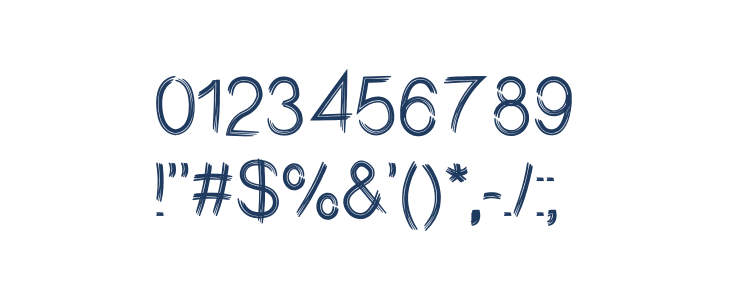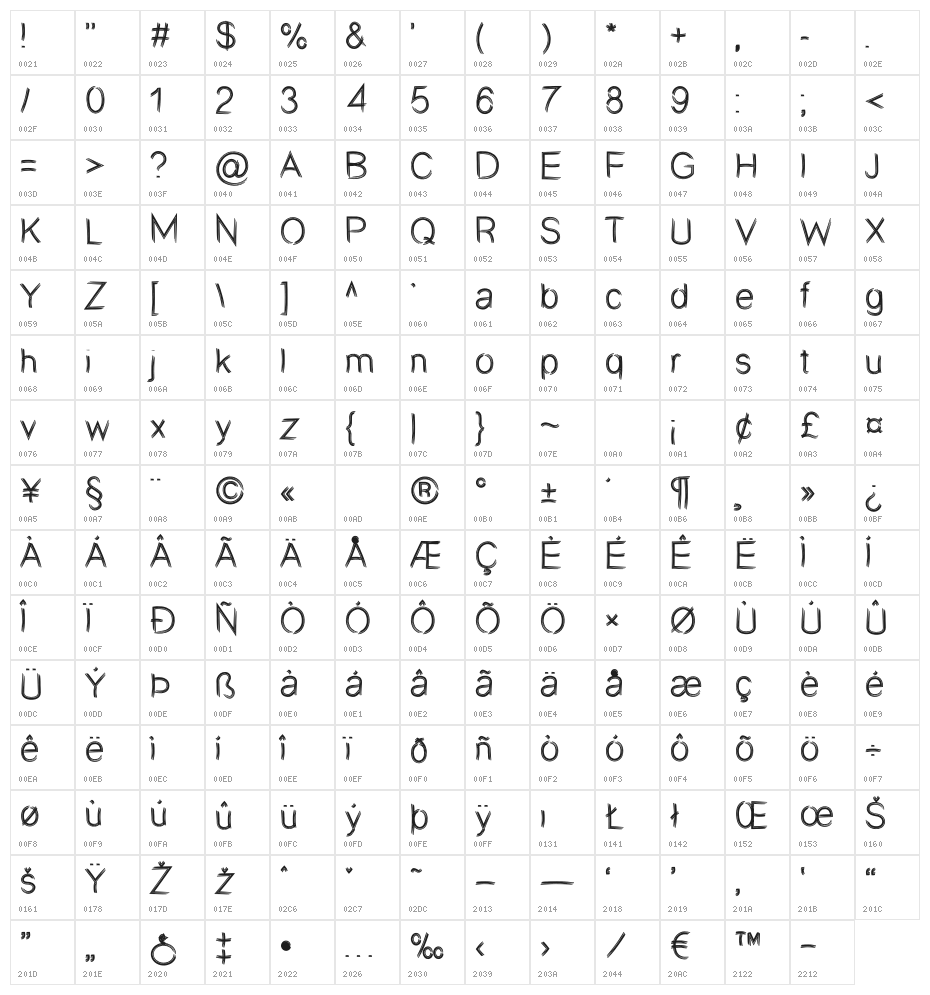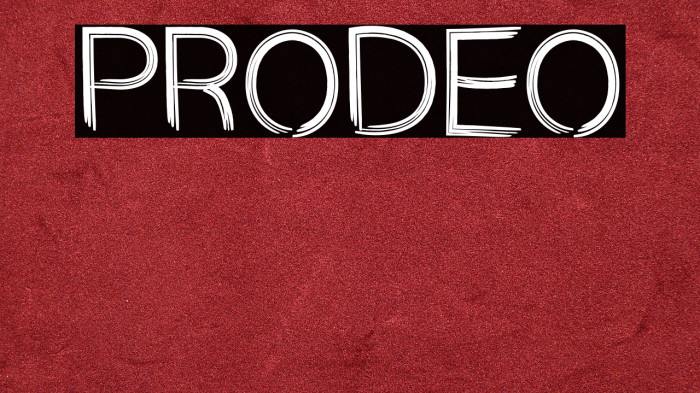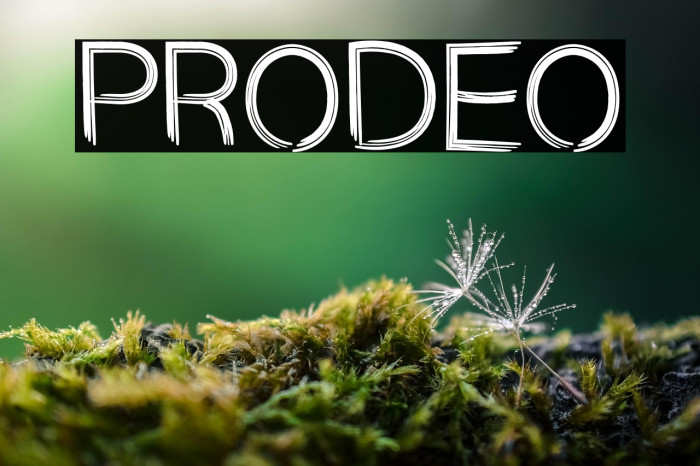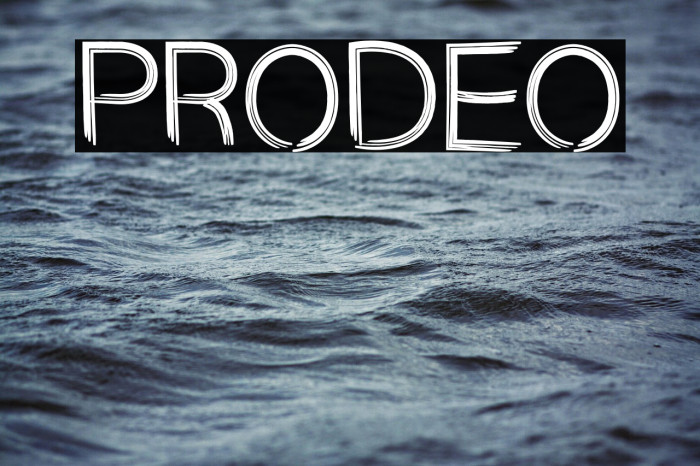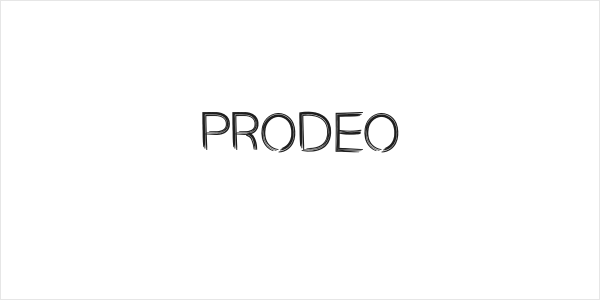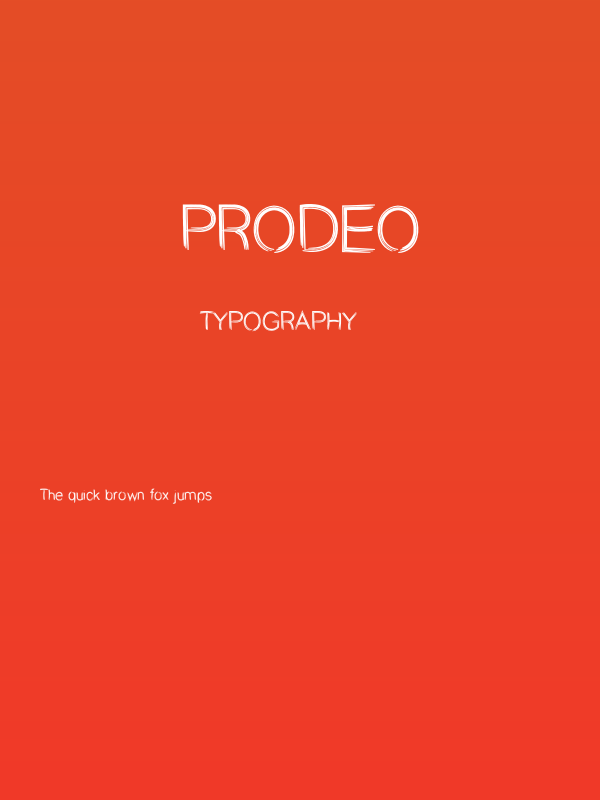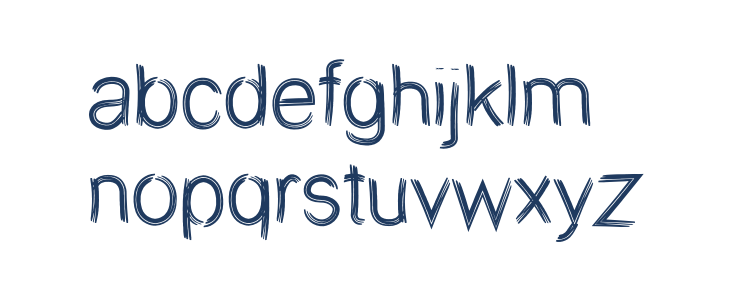
PRODEO Font
PRODEO Description
This font features a dynamic and energetic style, characterized by its hand-drawn appearance with uneven, sketch-like strokes. The letters have a playful and informal feel, with varying line thickness that adds a sense of movement and spontaneity. The uppercase and lowercase letters maintain a consistent style, while the numerals and special characters complement the overall aesthetic. This font is ideal for projects that require a casual and artistic touch, making it suitable for creative designs, posters, and branding that aim to convey a sense of fun and originality.
| Proposed Projects | Ideal for creative designs, posters, branding, and any project needing a casual, artistic touch. |